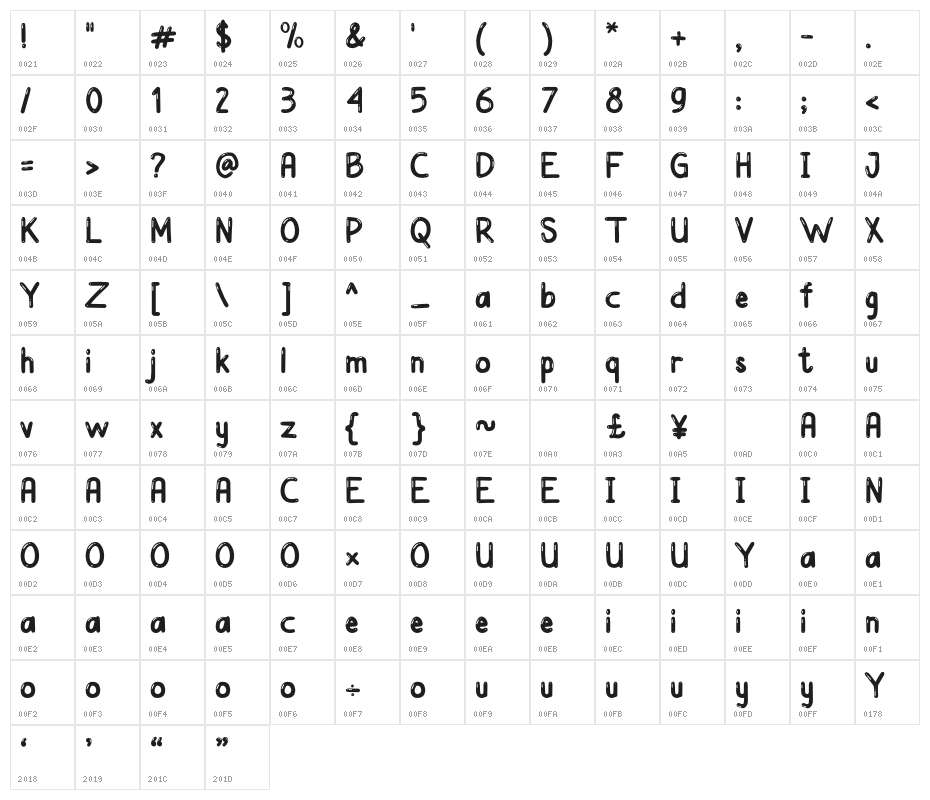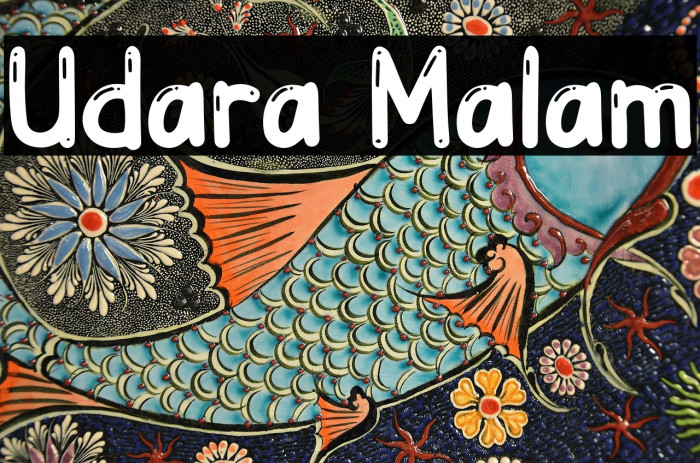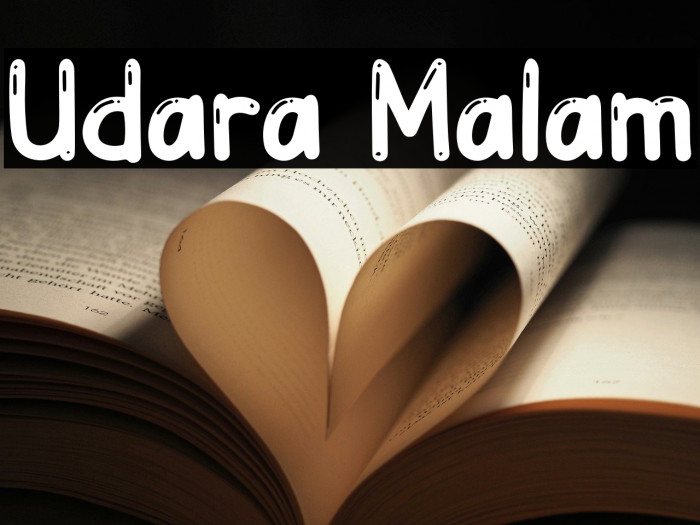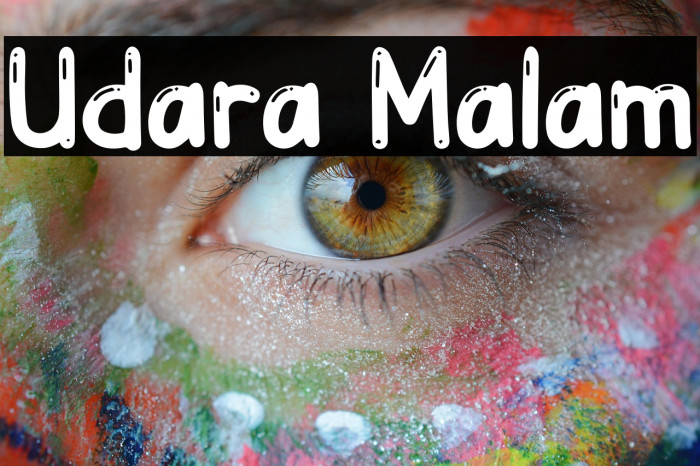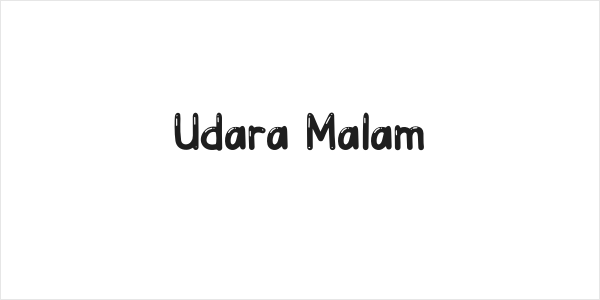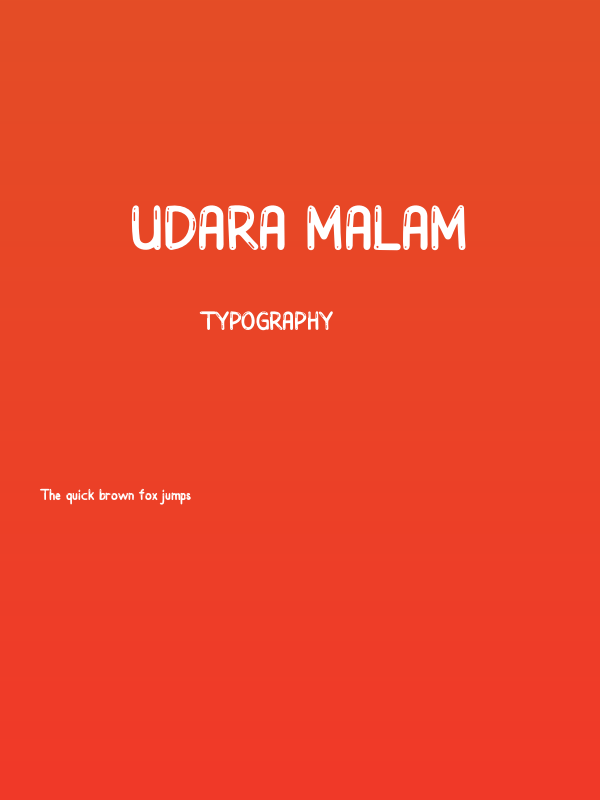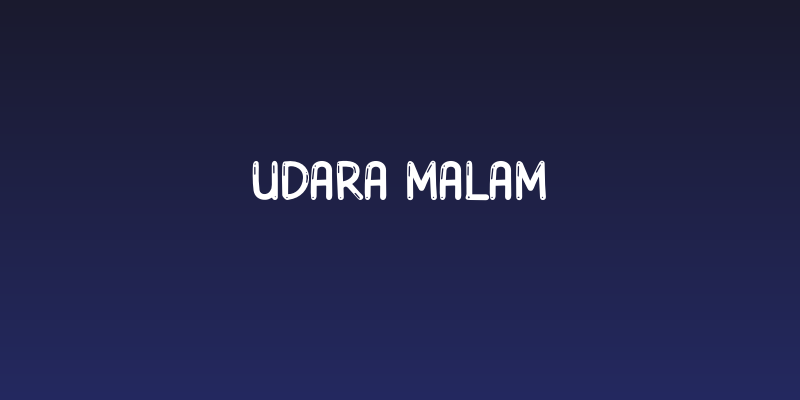
Udara Malam Font
Udara Malam Description
A playful, rounded font with a hand-drawn appearance, featuring irregular strokes and a casual style.
| Proposed Projects | Children's books, casual posters, playful branding. |